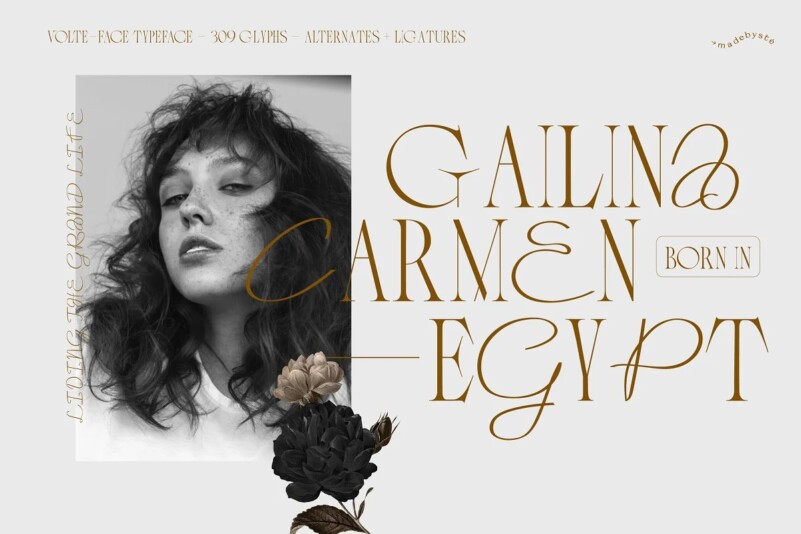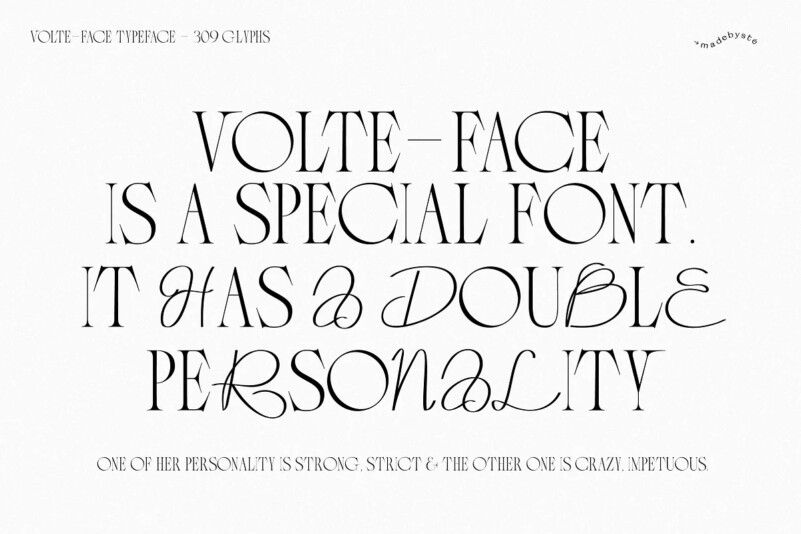
VOLTE-FACE – Serif & Script Font
Volte-Face typeface is an original display font because it has two different personality. The uppercases are serif serious glyphs and the lowercase are the crazy ones, more impetuous. Two different faces/sides of the same coin. It makes it playful & memorable. Have fun with it. Perfect for big titles.